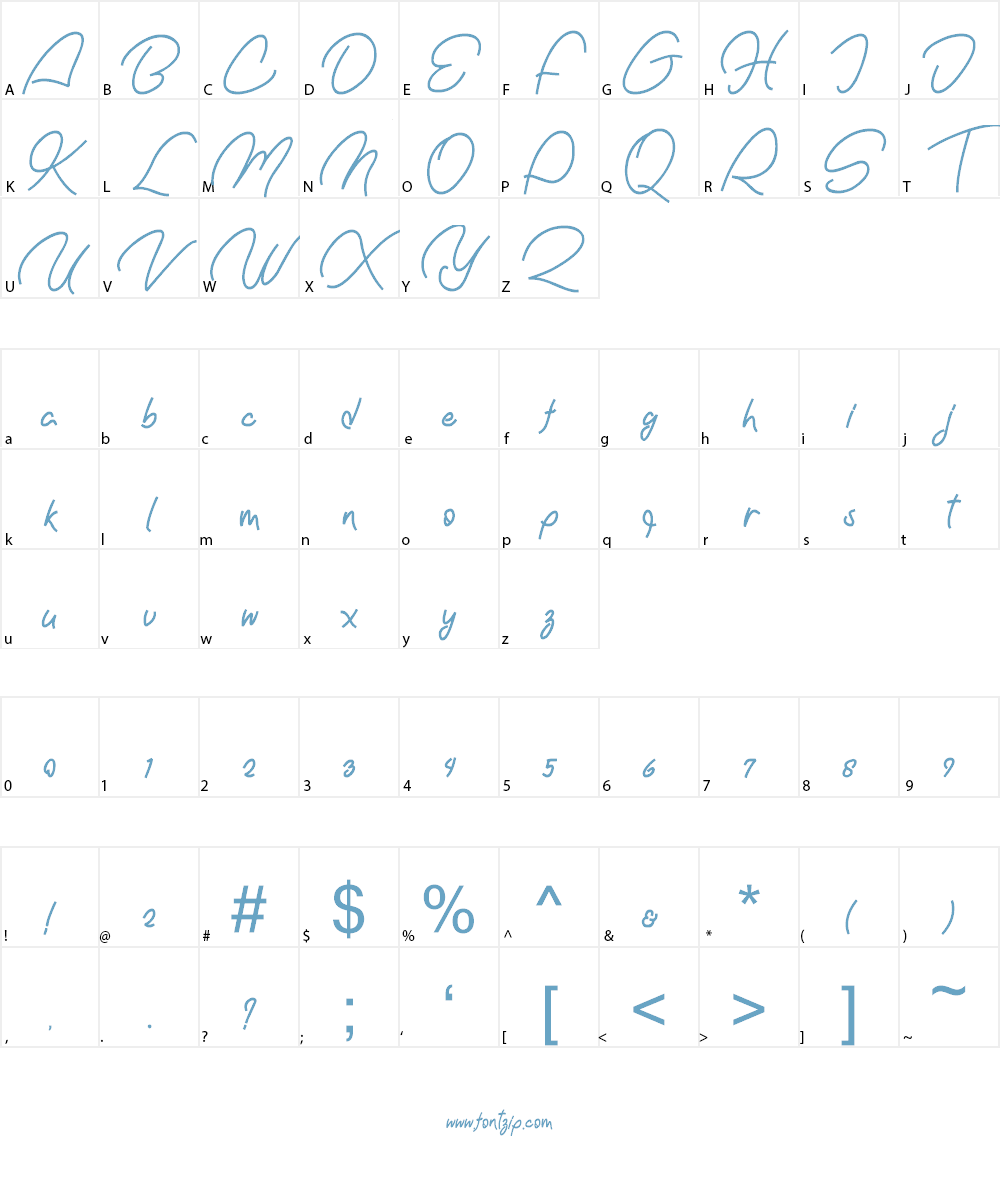
Nachel Victoria is a simple, yet aesthetically beautiful typeface. It has a modern script look which can be used for business cards, logos, packaging, branding, magazines, quotes, and much more!